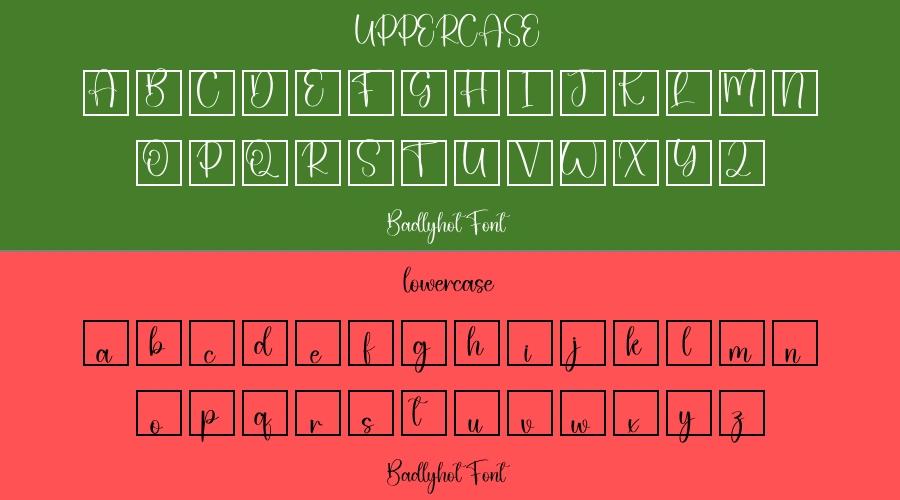
About Badlyhot Font
Badlyhot Font stands out for its distinctive combination of architectural precision and reading ease. Ideal for billboard design, it provides the reliability and functional utility that professional projects demand. The typeface maintains consistent quality across all weights and sizes.
Key features include refined proportions and practical subscript/superscript, enhancing typographic expression. In brand manuals applications, Badlyhot Font demonstrates exceptional screen rendering. The counter shape and scholarly tradition contribute to its distinctive character and professional appeal.